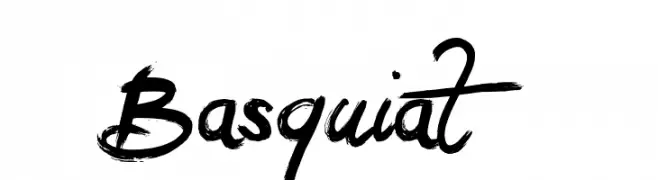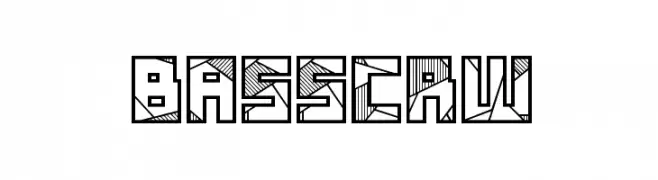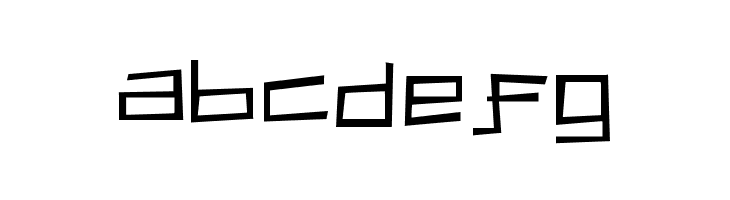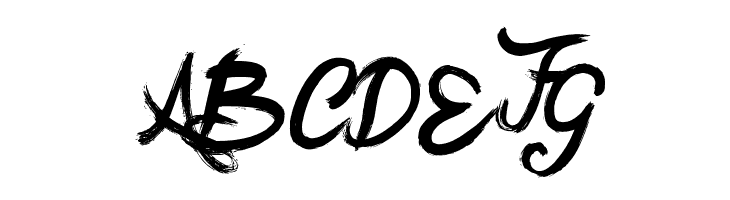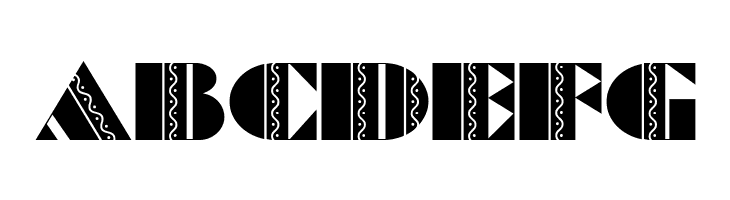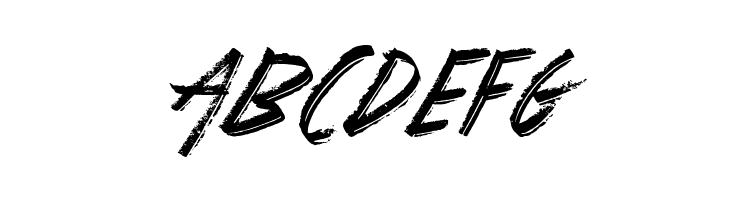
A bold, expressive brush script font with dynamic and artistic flair.
A bold, geometric font with intricate line patterns and a blocky, angular style.
A modern, angular font with geometric shapes and sharp lines.
A bold, brush-style font with a gritty, expressive texture.
A bold, jagged font with a distressed, horror-themed aesthetic.
A bold, decorative font with intricate batik-inspired patterns.
A bold, angular font with a modern and edgy style.